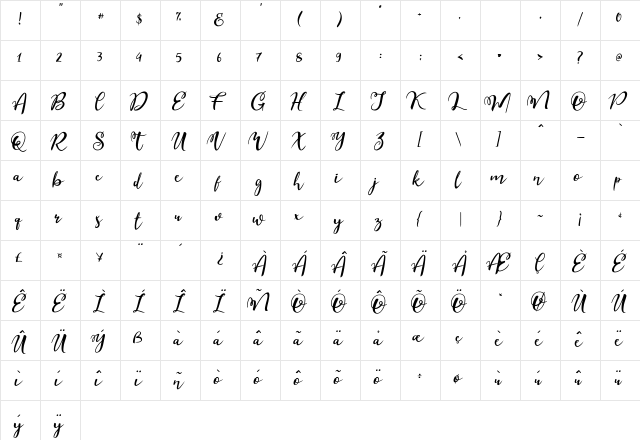
Esteh Regular
| Foundry | Khurasan |
| Designer | Khurasan |
Design Context for Esteh Typeface
Esteh is a composed and adaptable typeface that performs quietly and consistently across a wide range of design contexts.